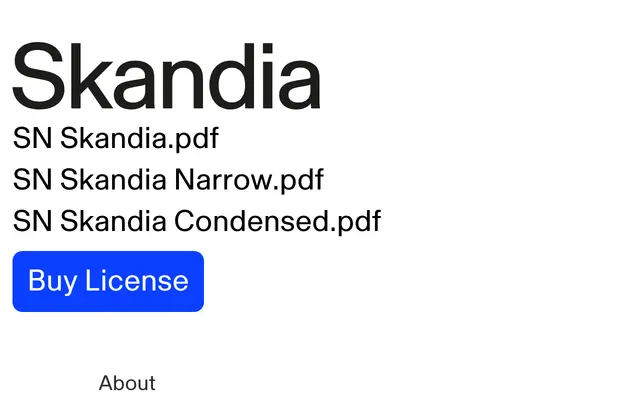
Store Norske Skandia
A geometric sans rooted in Scandinavian modernism, reviving a neo-grotesque originally created for the Norwegian National Railway.
Designed by Arve Båtevik, Skandia draws on a rediscovered neo-grotesque from the Norwegian National Railway to build a rational, clean-lined geometric sans suited to branding, advertising and digital work. The superfamily spans four subfamilies — standard, Narrow, Condensed and Mono — each offered in eight weights with matching italics, giving the system considerable range across widths and applications. Latin coverage is broad, extending from Western and Central European to Nordic, Baltic, Celtic and Sami languages.
Described explicitly as a rational geometric typeface rooted in Scandinavian modernism, with neo-grotesque origins traced to a Norwegian National Railway typeface; the combination of geometric construction and neo-grotesque heritage places it squarely in geometric sans territory.